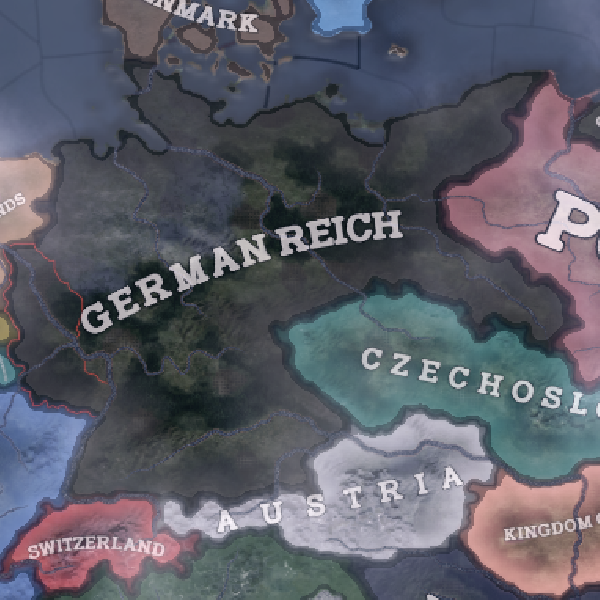
Spartakus Map Font
A small font mod, featuring the map font of the unreleased work in progress mod Spartakus: World in Revolution. It is an edited version of the Typo Slab Irregular font by Studio Typo.